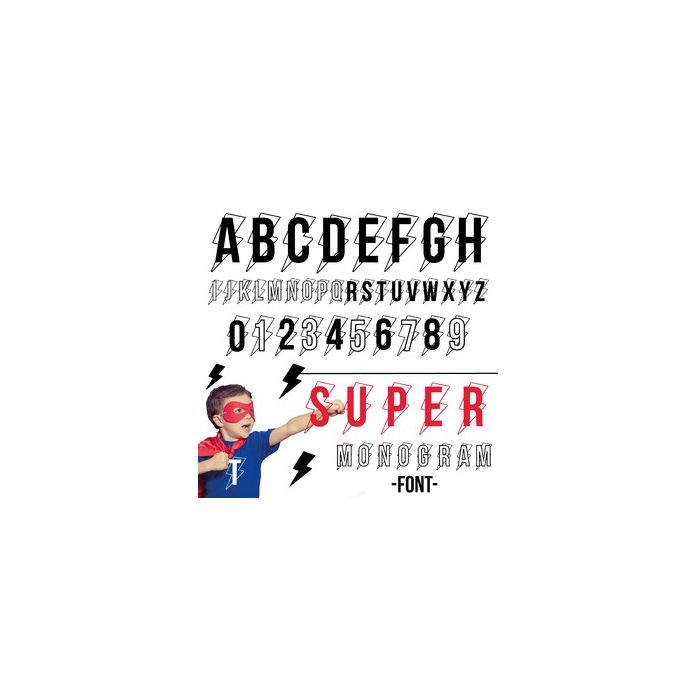
Super Monogram Font - with solid and open letters on a lightning bolt background. Also contains numbers and additional characters as well as a thunderbolt. All glyphs are allocated to keys and available via the glyphs panel / character map.